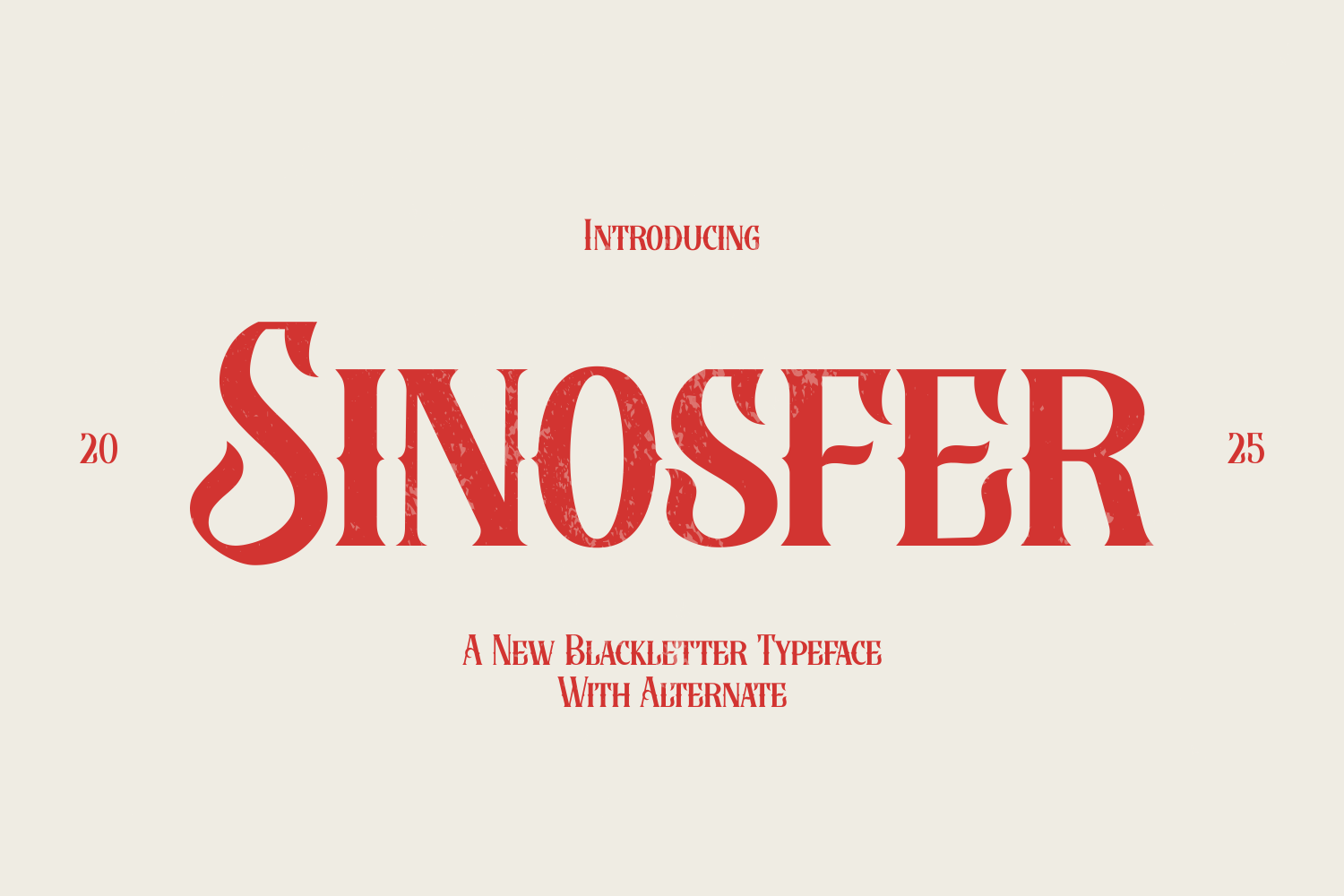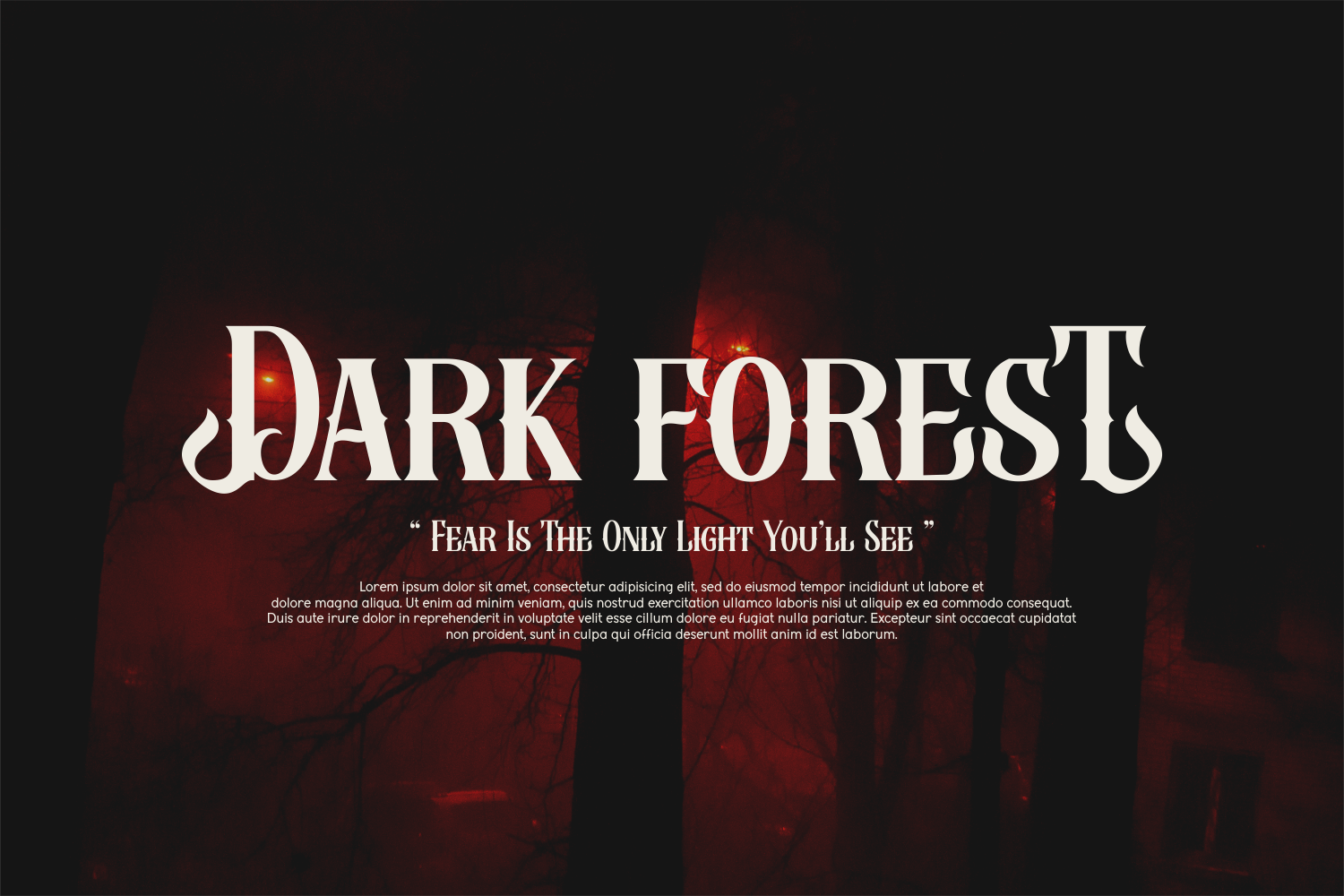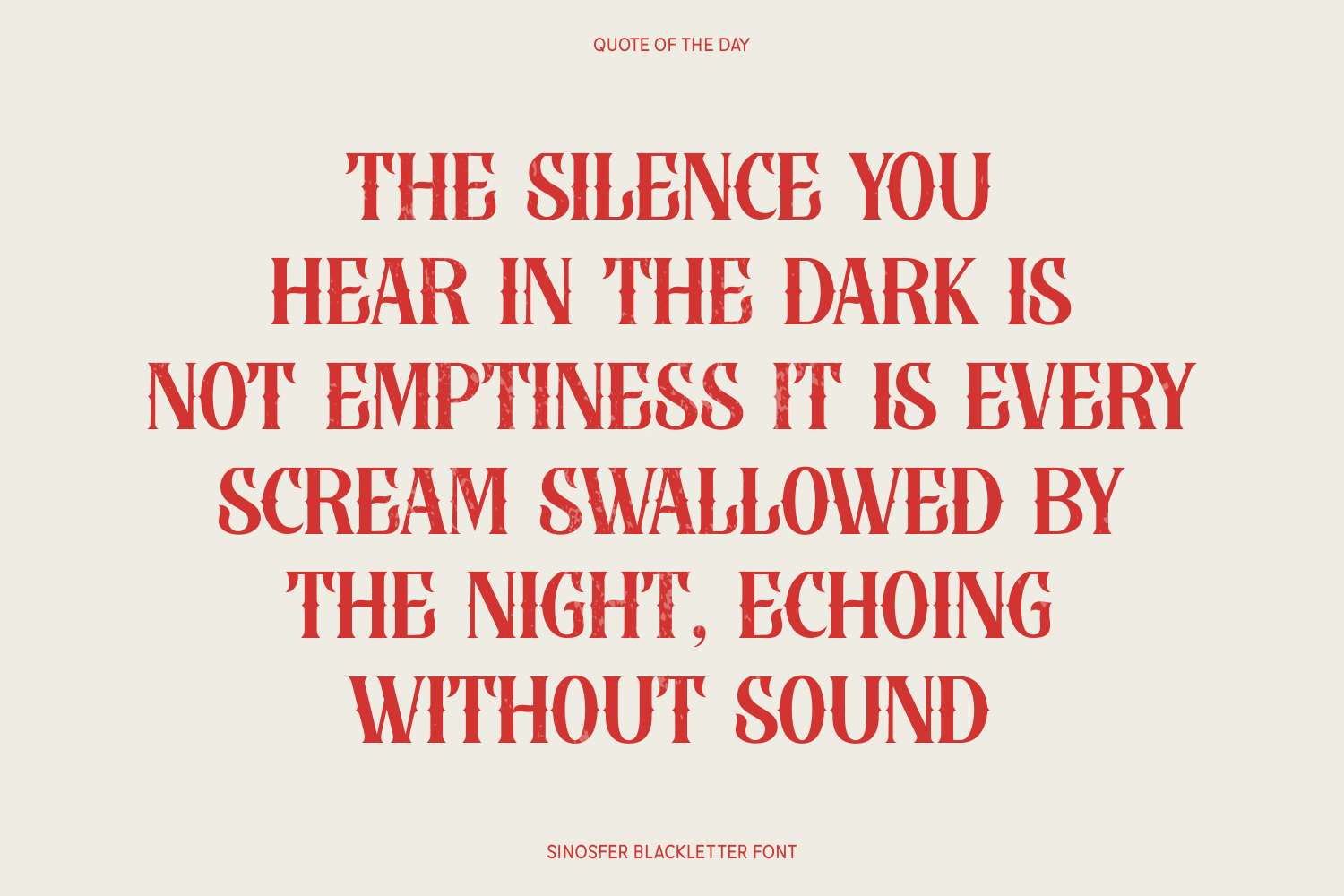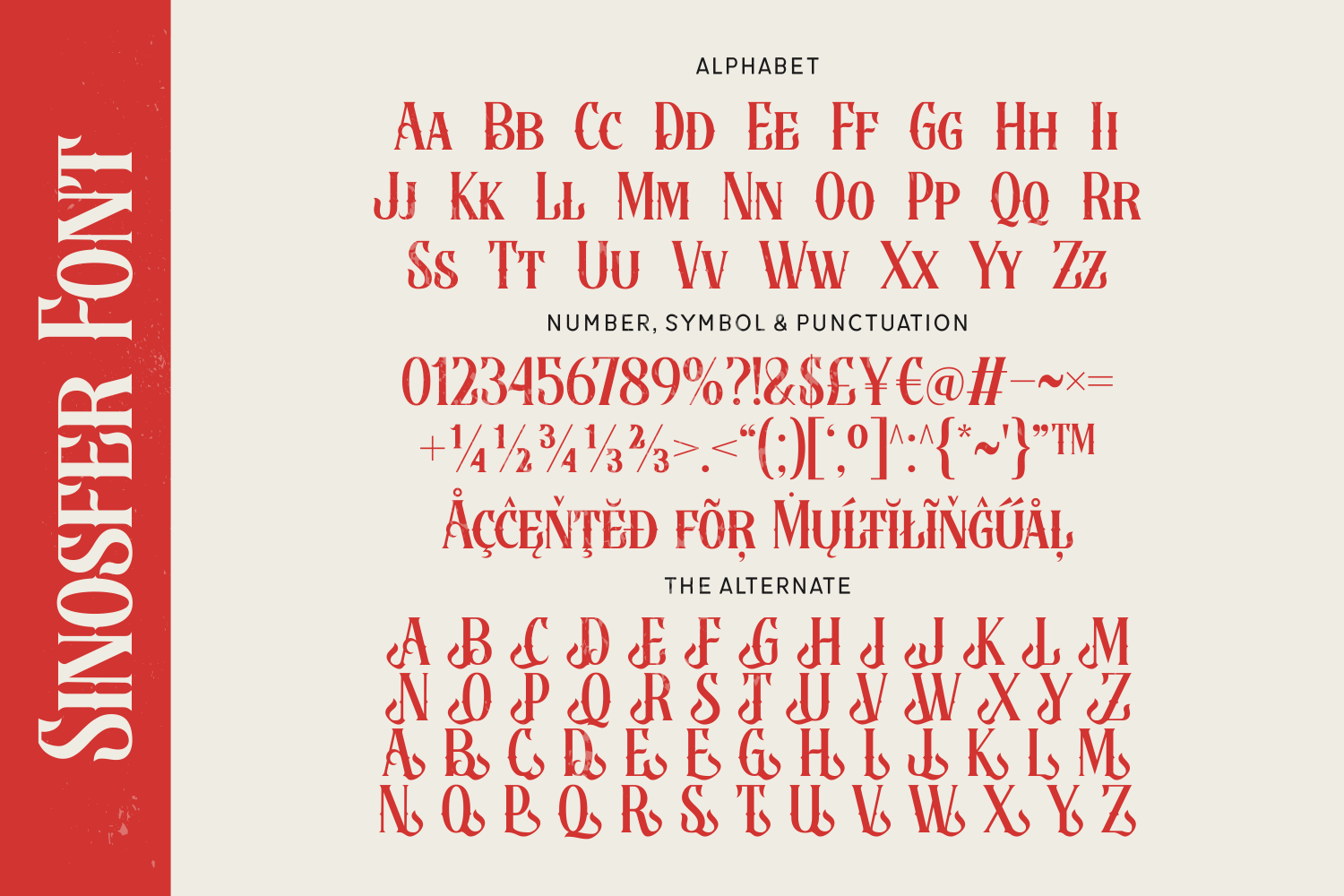
Sinosfer is a modern blackletter typeface with distressed texture and sharp character design, striking the perfect balance between grit and elegance. Its alternate characters offer creative flexibility for logos, packaging, and editorial titles that need a dramatic, handcrafted edge.
This font is both nostalgic and bold, evoking a worn but powerful aesthetic. When you want your design to feel fierce and timeless, Sinosfer delivers.